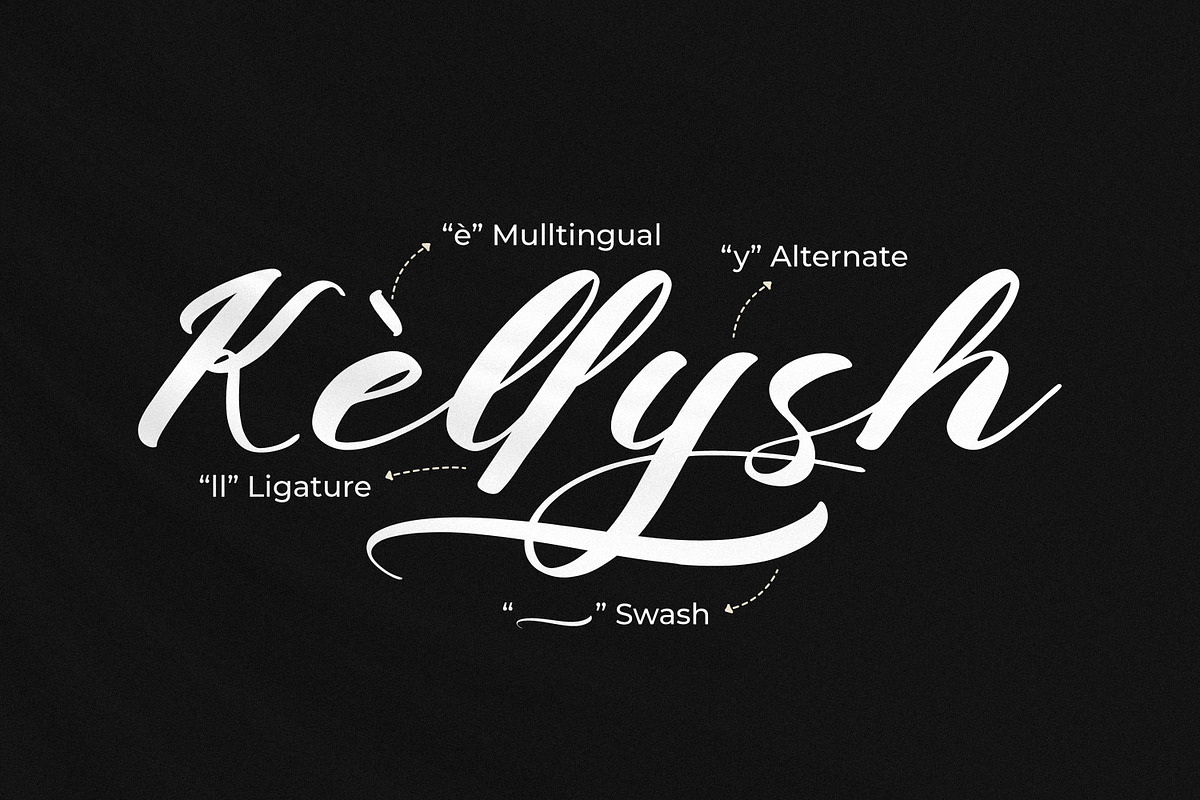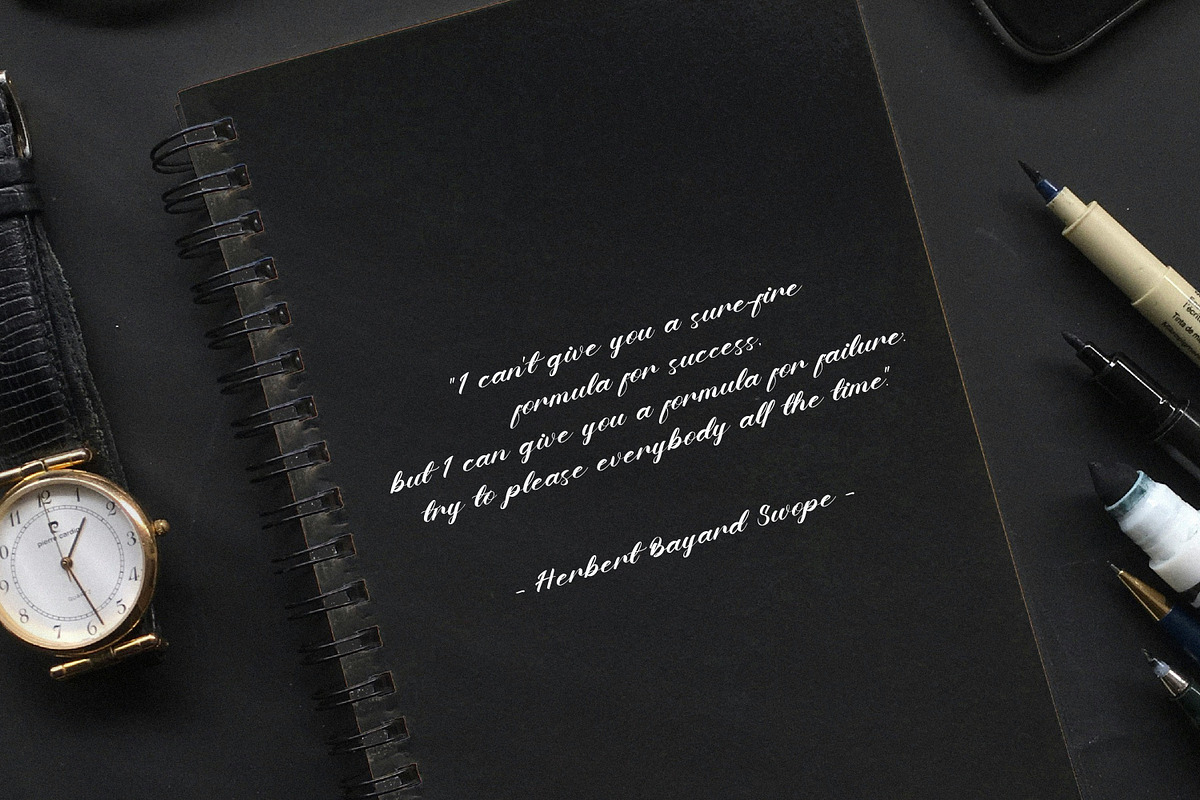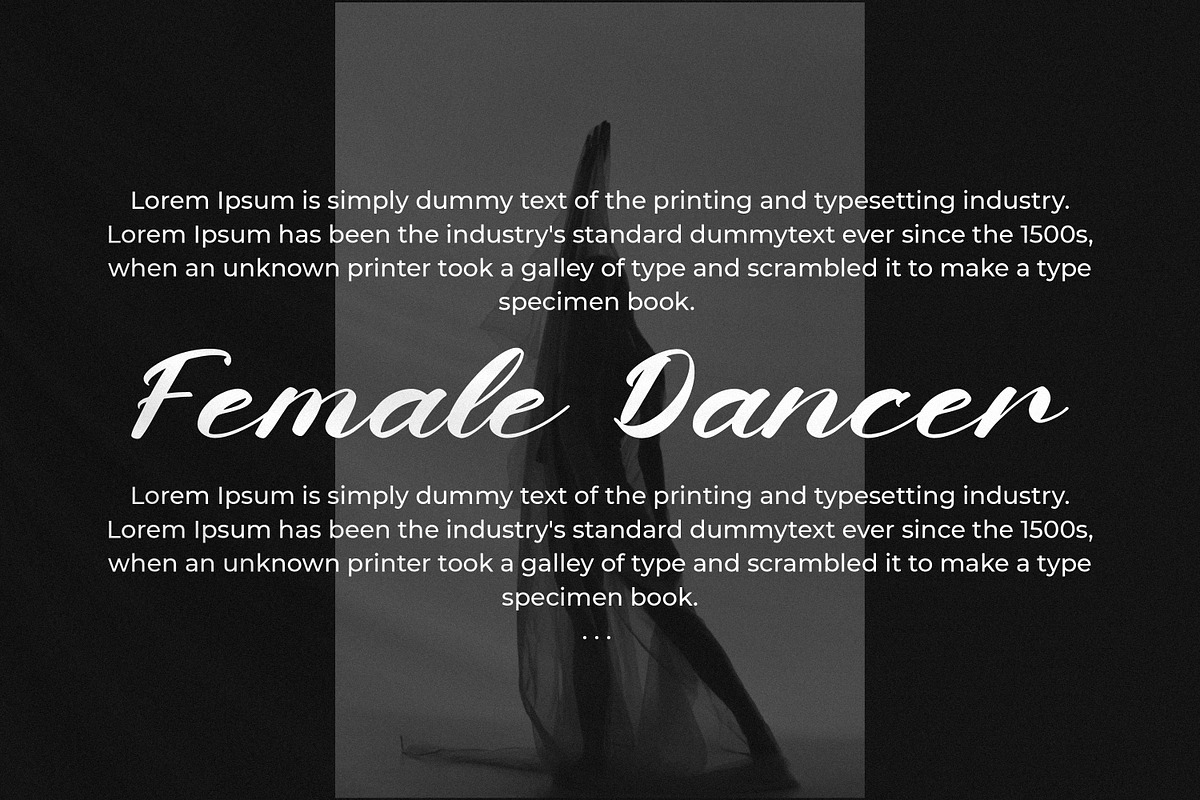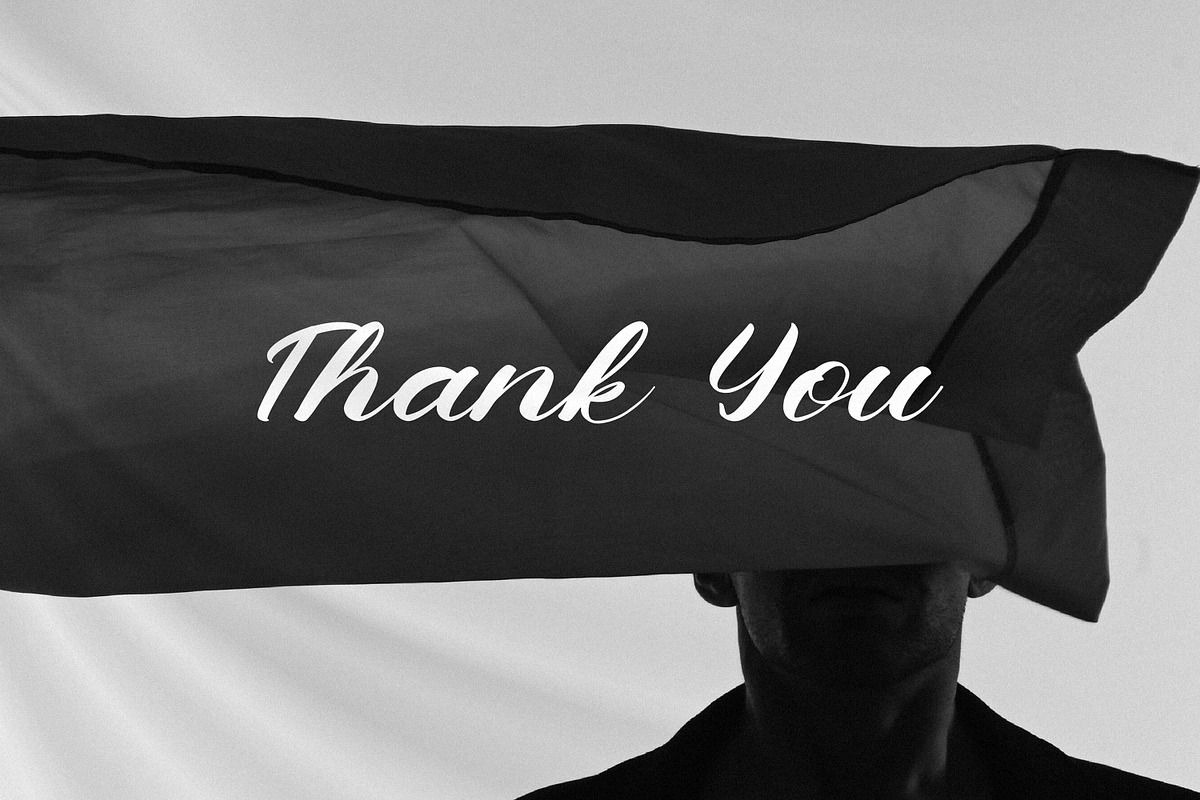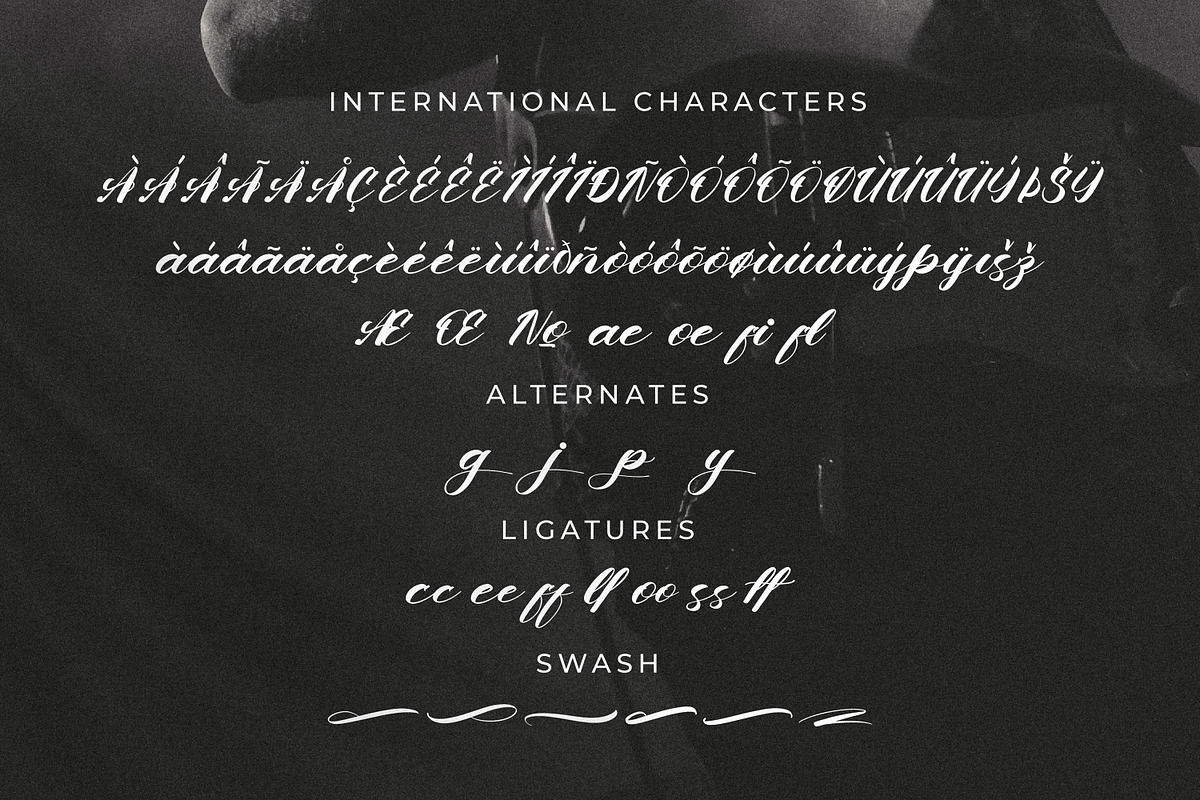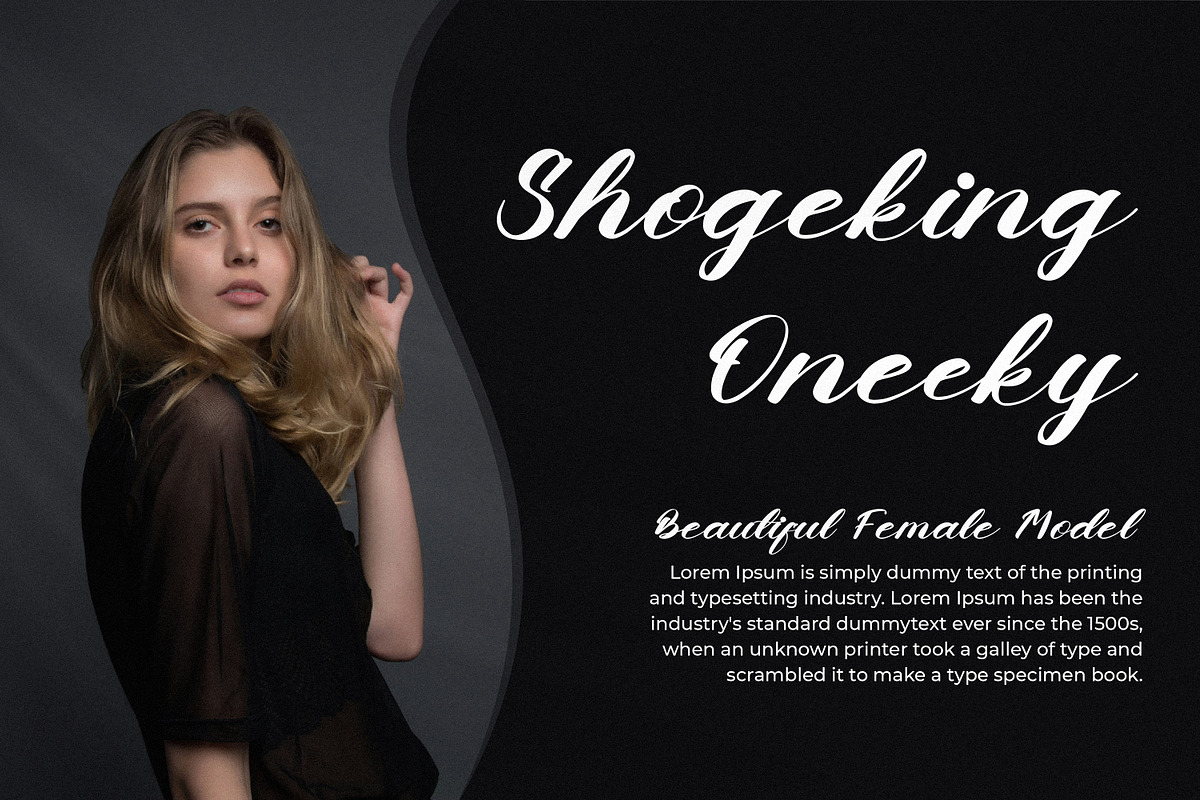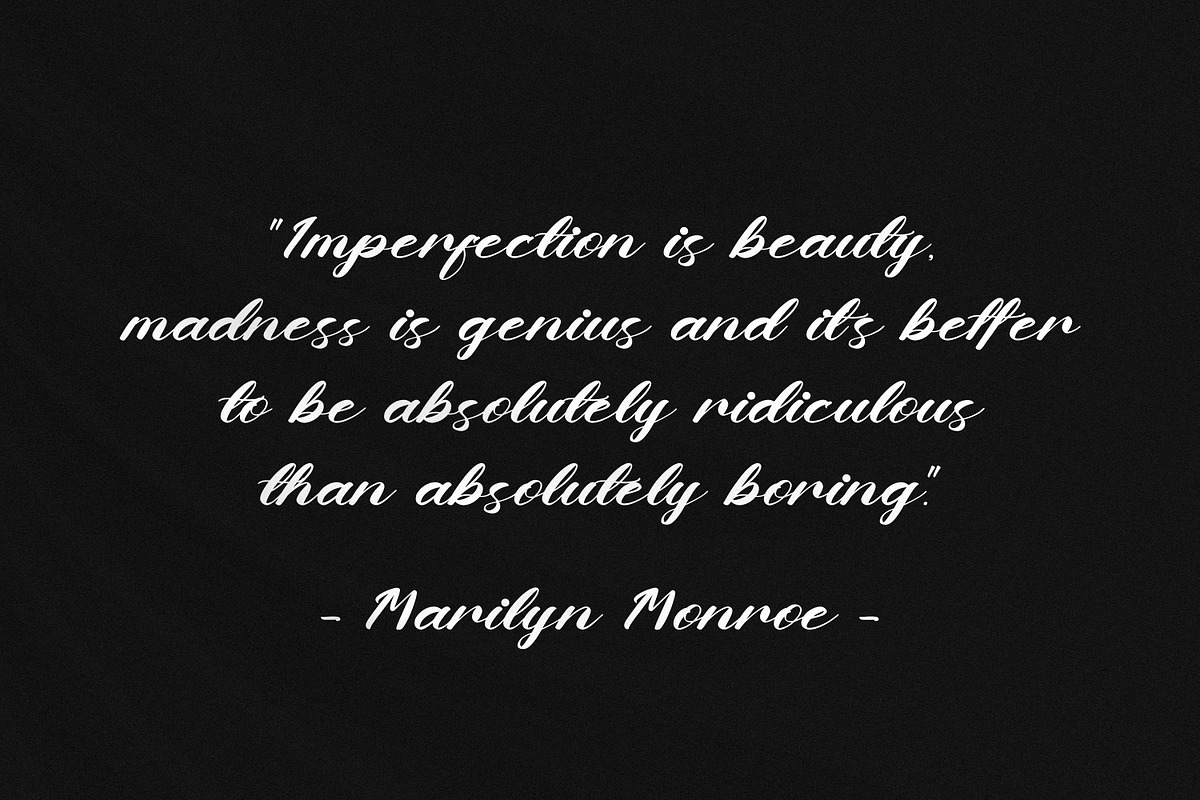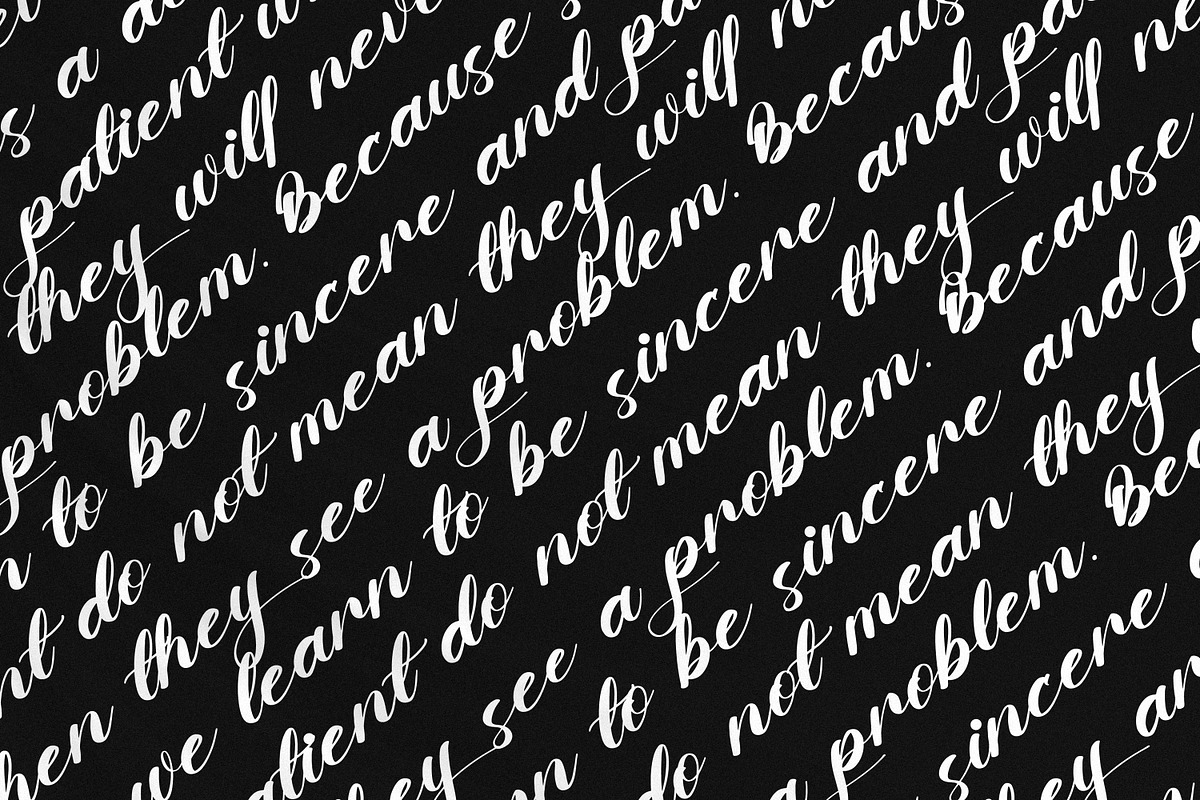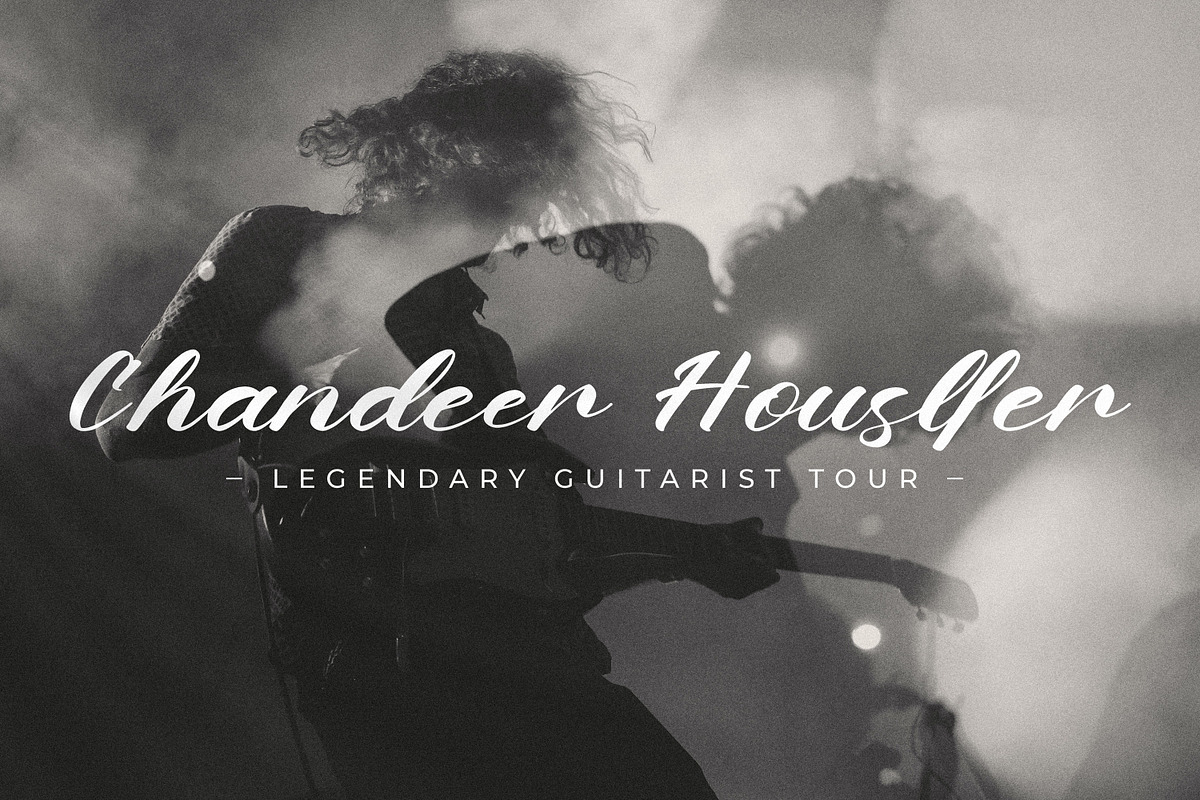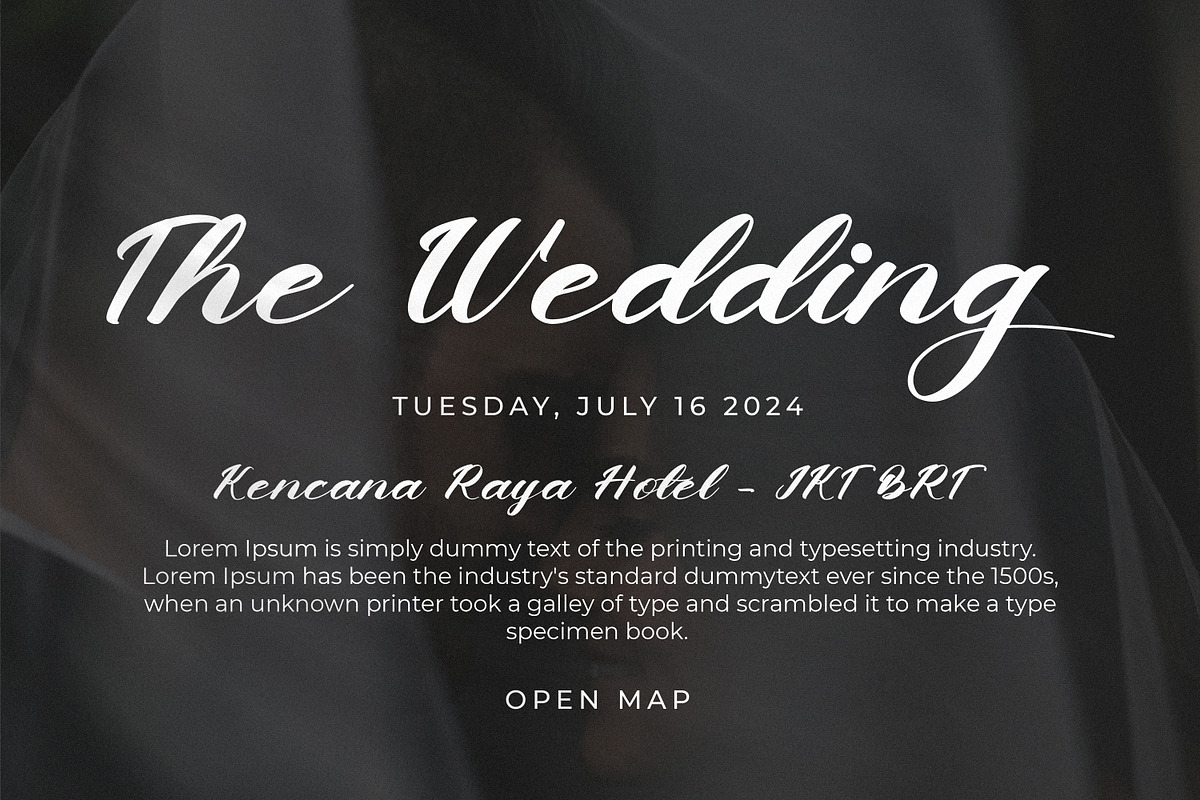
Chandeer Holestter
Chandeer Holestter - A Beauty Script Font, from Goresan Studio, suitable for any projects such as: logos, branding projects, homeware designs, product packaging, mugs, quotes, posters, shopping bags, t-shirts, book covers, name card, invitation cards, greeting cards, label, photography, watermark, special events, and all your other lovely projects that need a beautiful script taste.
- Alternate, Ligature and Swash
- Fonts include multilingual support.